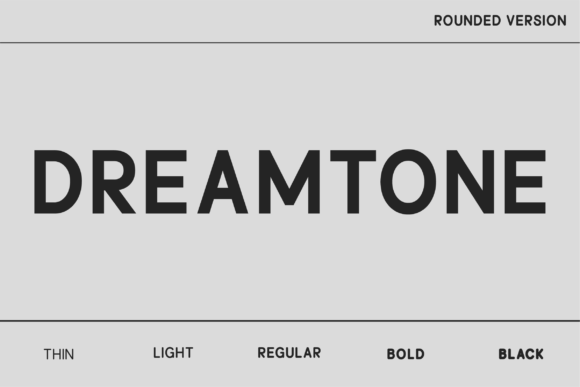
Unlock the Timeless Elegance of Your Designs
Have you ever been stuck in the middle of a project, pouring over font options, trying to find the perfect combination of style and sophistication? You know, that moment when everything else fades away, and all that matters is the subtle yet powerful impact of a single font choice? For designers, this moment is all too familiar.
That’s where the Dreamtone Rounded Font comes in – a stunning sans serif font that effortlessly elevates any project, whether it’s a magazine spread, a logo, or a film poster. Crafted with precision and care, this font offers the perfect balance of simplicity and elegance, allowing your designs to exude timeless charm and sophistication.
With the Dreamtone Rounded Font, you’ll find that your designs take on a new level of sophistication, making it an invaluable addition to any designer’s toolkit. Its versatility and timeless charm make it the perfect choice for designers who want to leave a lasting impression.
Dreamtone Rounded Font Key Features
- Font Size and Resolution: Designed to be highly legible at various sizes, from 8pt to 24pt, and resolutions, up to 1200 DPI, making it suitable for print and digital applications.
- Rounded Design: Characterized by its smooth, rounded edges and subtle curves, creating a friendly and approachable aesthetic that works well for body text and headings.
- Extensive Character Set: Includes a wide range of characters, including Latin, Cyrillic, and Greek alphabets, as well as punctuation, symbols, and numerals, making it a versatile choice for multilingual projects.
Dreamtone Rounded Font Review
Overall, I’m quite impressed with the Dreamtone Rounded Font. Here’s what I think works well: ✨
- Unique, rounded style that’s perfect for creative projects
- Highly legible, even at smaller font sizes
- Supports a wide range of languages, making it a great choice for international projects
- Includes a comprehensive set of glyphs, including punctuation and special characters
- Font weights and styles are somewhat limited, with only a few options available
- May not be the best choice for highly technical or formal projects, due to its rounded style
- Not as widely supported as some other fonts, which could cause issues in certain environments
Overall, I think the Dreamtone Rounded Font is a solid choice for creative projects that require a unique, rounded style. While it may have some limitations, its high legibility and wide language support make it a great option for many designers.
The Dreamtone Rounded Font is ideal for:
- Product packaging and labeling
- Web design and user interface
Tips for Getting the Most Out of Dreamtone Rounded Font
To get the most out of the Dreamtone Rounded Font, keep the following tips in mind:
- Use it in combination with other rounded fonts for a cohesive look.
Alternatives to Dreamtone Rounded Font
Lato Rounded
Lato Rounded is a modern sans-serif font that offers a rounded and friendly look. It is ideal for use in branding, advertising, and digital interfaces where a friendly and approachable tone is desired. Lato Rounded has a similar rounded feel to Dreamtone Rounded Font but with a more modern and clean design.
Aleo
Aleo is a rounded sans-serif font that offers a unique blend of modern and classic design elements. It is suitable for use in editorial, publishing, and creative projects where a sophisticated and elegant tone is desired. Aleo has a more delicate and refined look compared to Dreamtone Rounded Font, making it ideal for projects that require a touch of sophistication.
What is the recommended font size and line height for using the Dreamtone Rounded Font in digital designs?
For optimal readability, we recommend using a font size between 14px and 18px, with a line height of 1.2 to 1.5 times the font size. This will help ensure that your text remains clear and legible on various screen resolutions and devices.